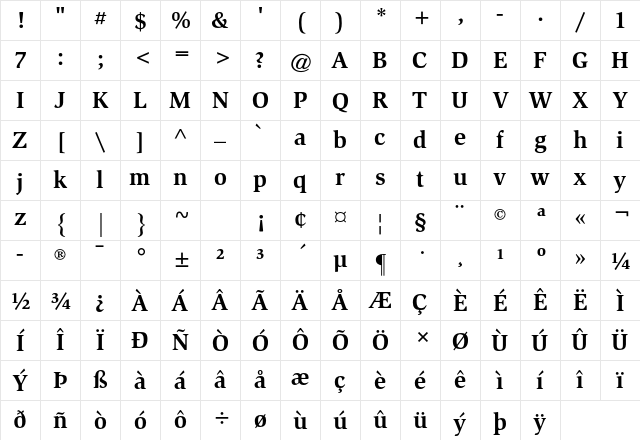
ITC Slimbach Std Bold
ITC Slimbach Std Family
Design Context for ITC Slimbach Std
ITC Slimbach Std is a composed and adaptable typeface that performs quietly and consistently across a wide range of design contexts. Its bold stroke weight gives it real presence on the page.